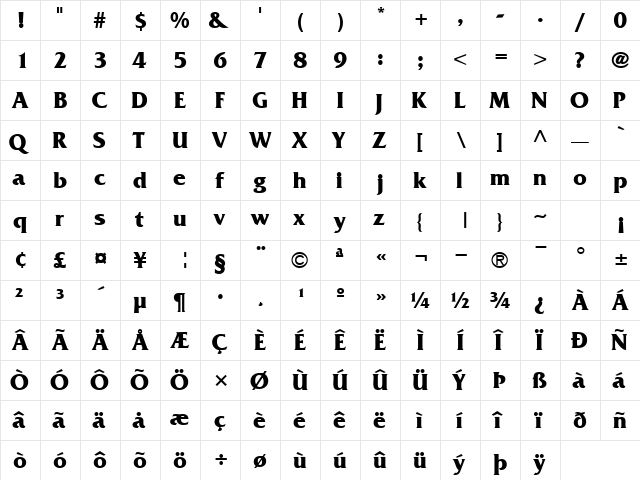
MusterSSK Bold
Design Context for MusterSSK Typeface
MusterSSK offers clean, dependable letterforms without strong stylistic allegiance, making it a practical choice for designers who need flexibility. Its bold stroke weight gives it real presence on the page.